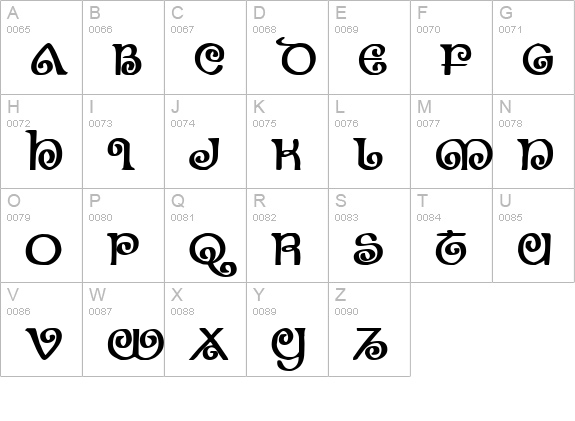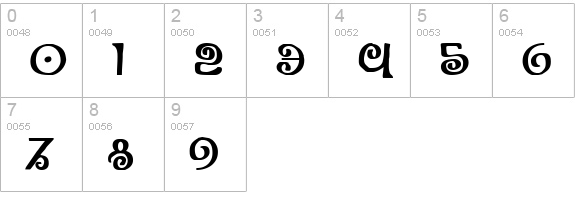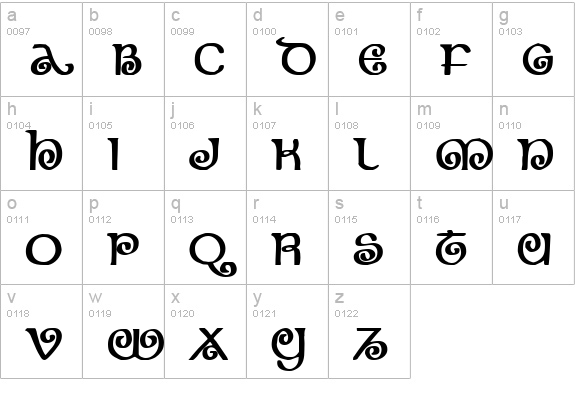
The Shire Bold Font Details
The Shire Bold is a strong, high-contrast variant in the The typeface family \xE2\x80\x94 well suited to headlines, attention-grabbing titles, and strong calls-to-action.
The Shire Bold font exudes a sense of whimsy and charm, perfect for adding a touch of fantasy to your projects. Its bold and distinctive letterforms make a statement while maintaining readability. The rounded edges and playful curves give this font a friendly and approachable feel, making it suitable for a wide range of applications such as invitations, posters, and branding materials. Best of all, The Shire Bold font is freely available to download at FontsMarket.com. Embrace the magic and creativity of this delightful font in your designs today!